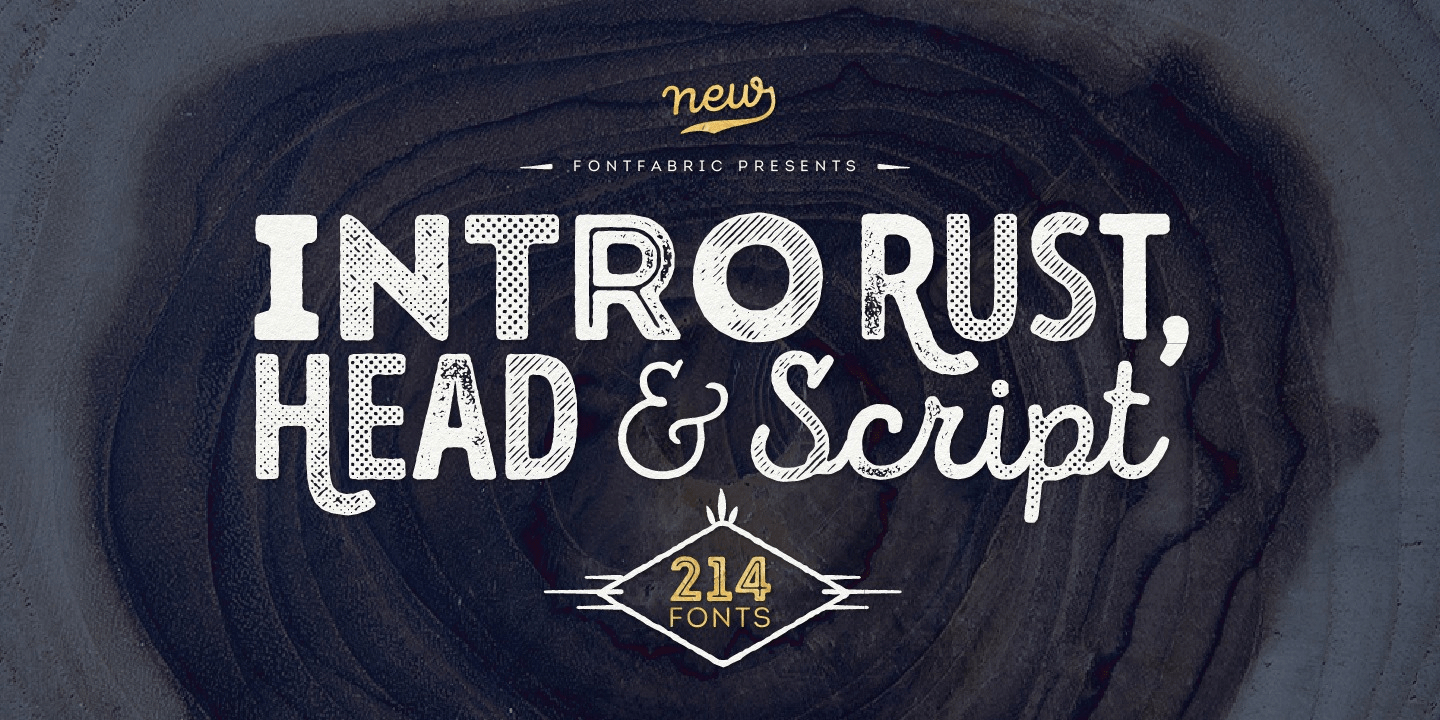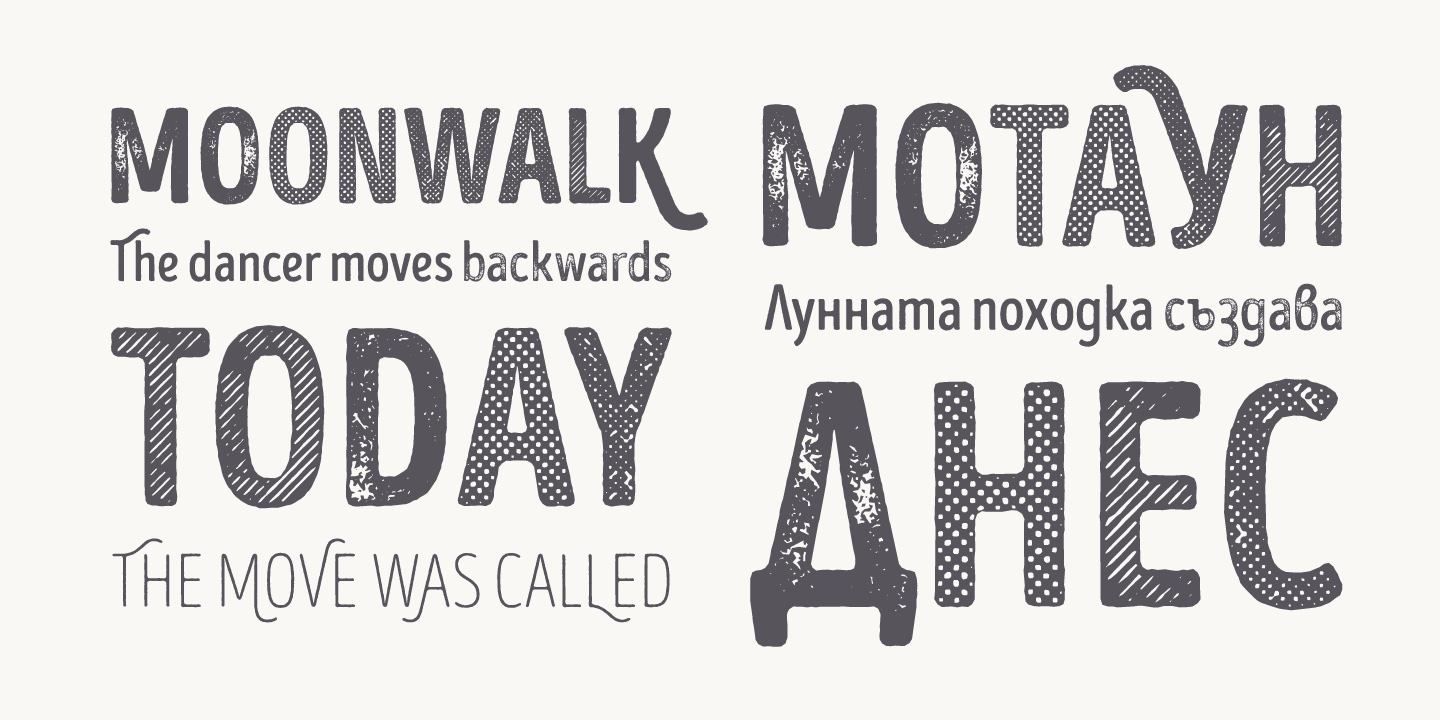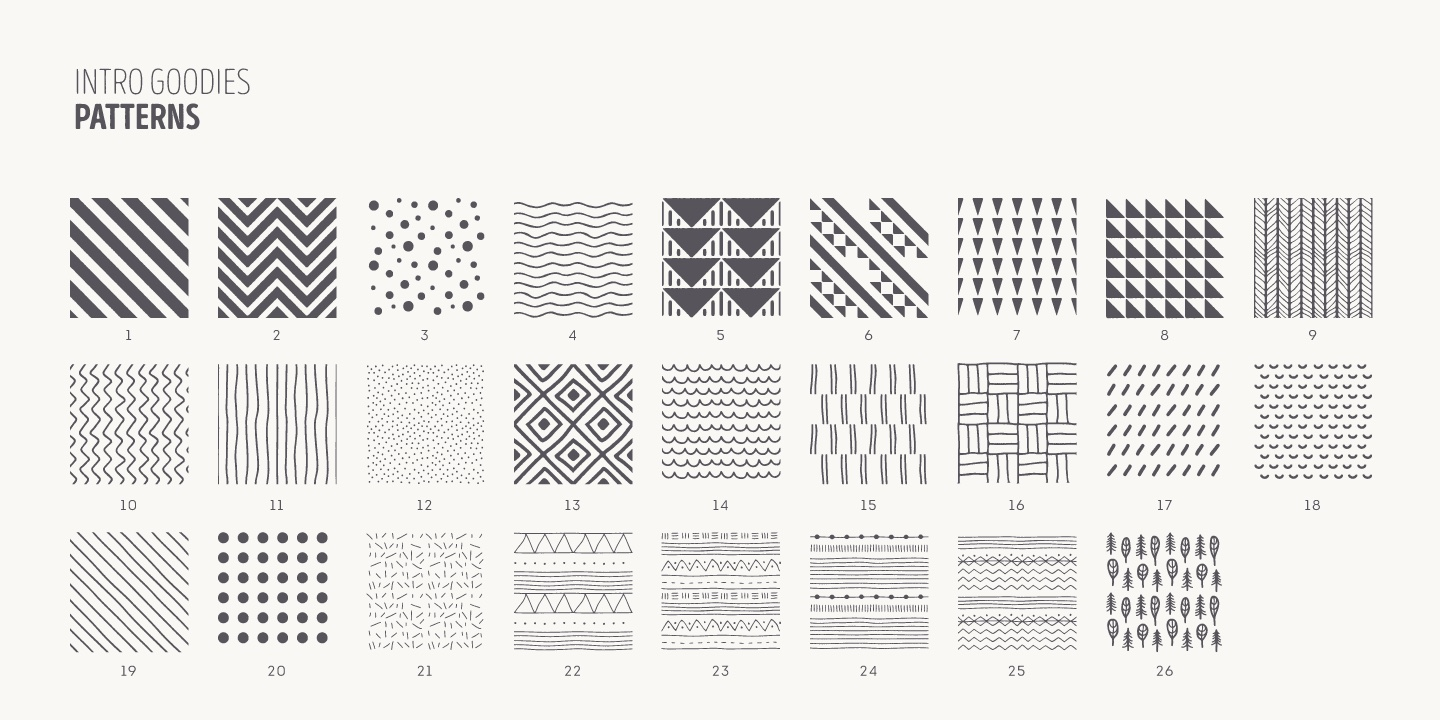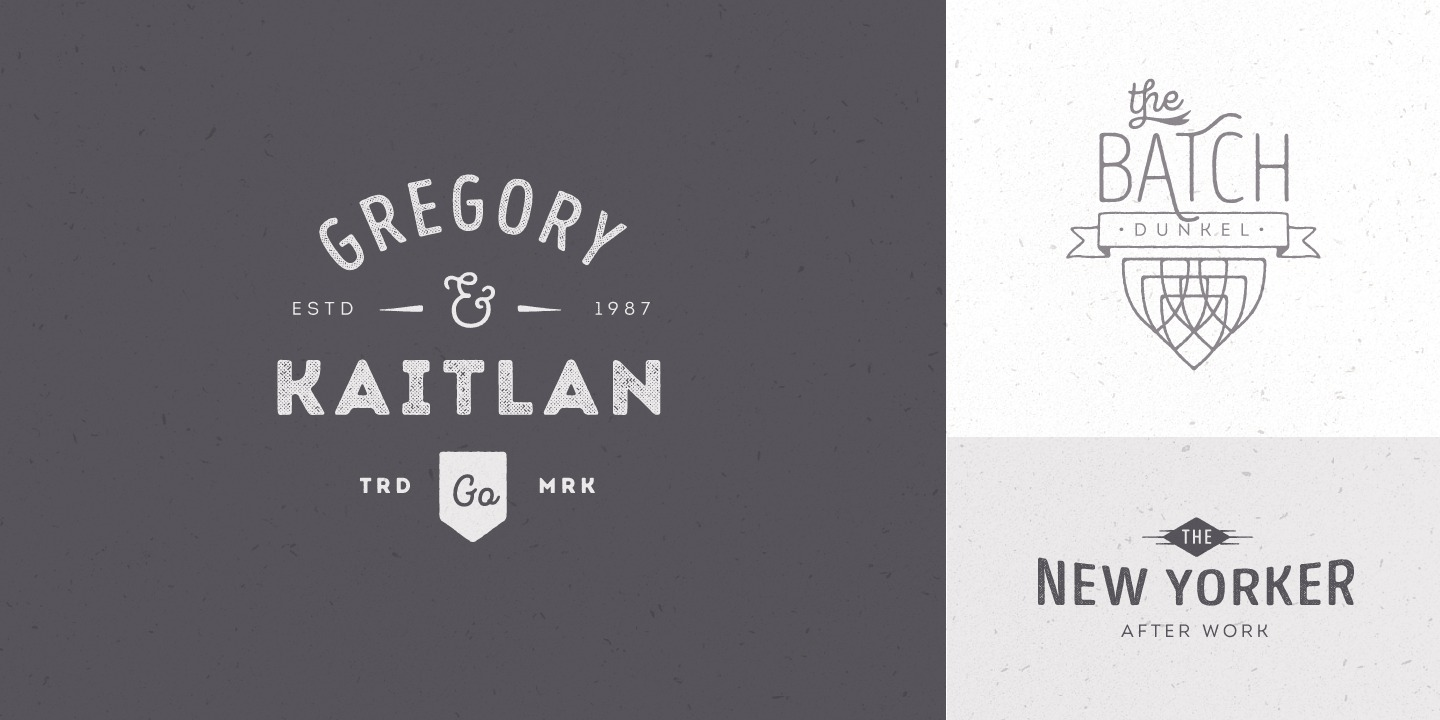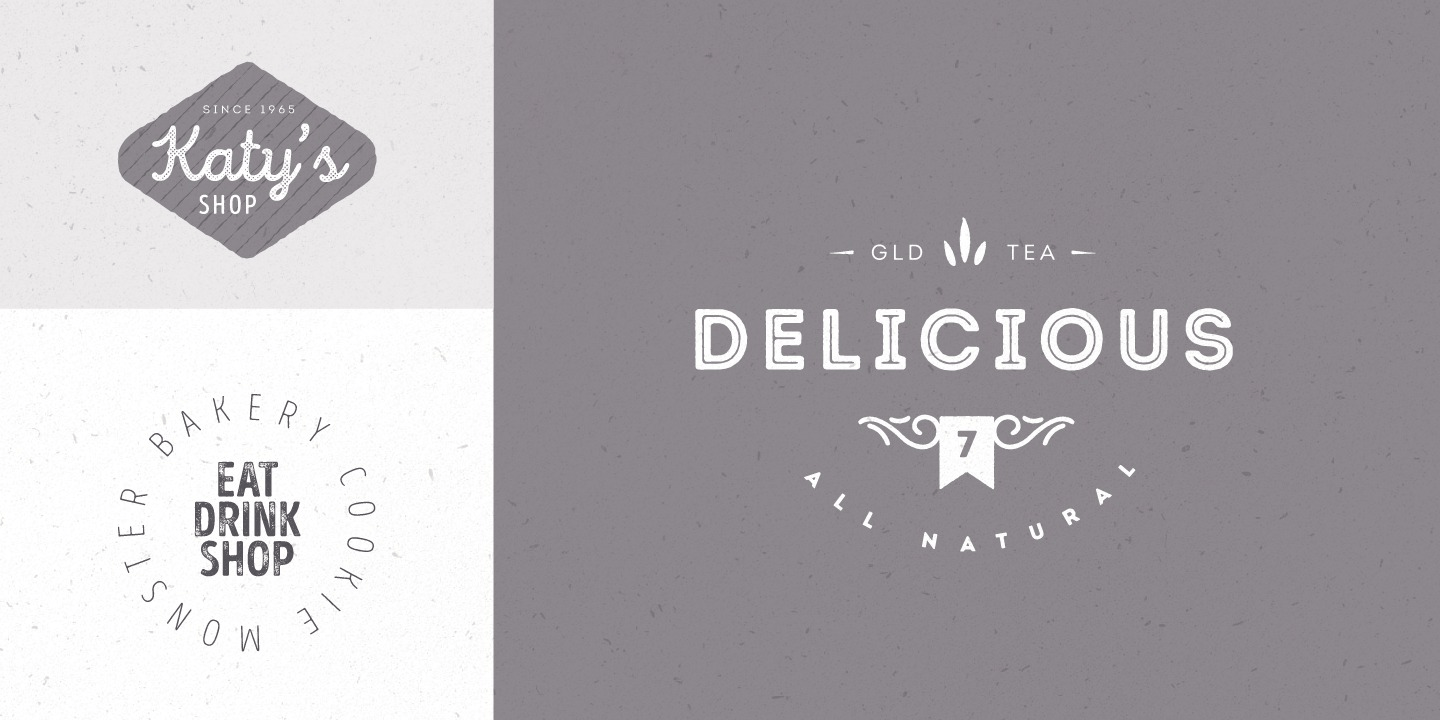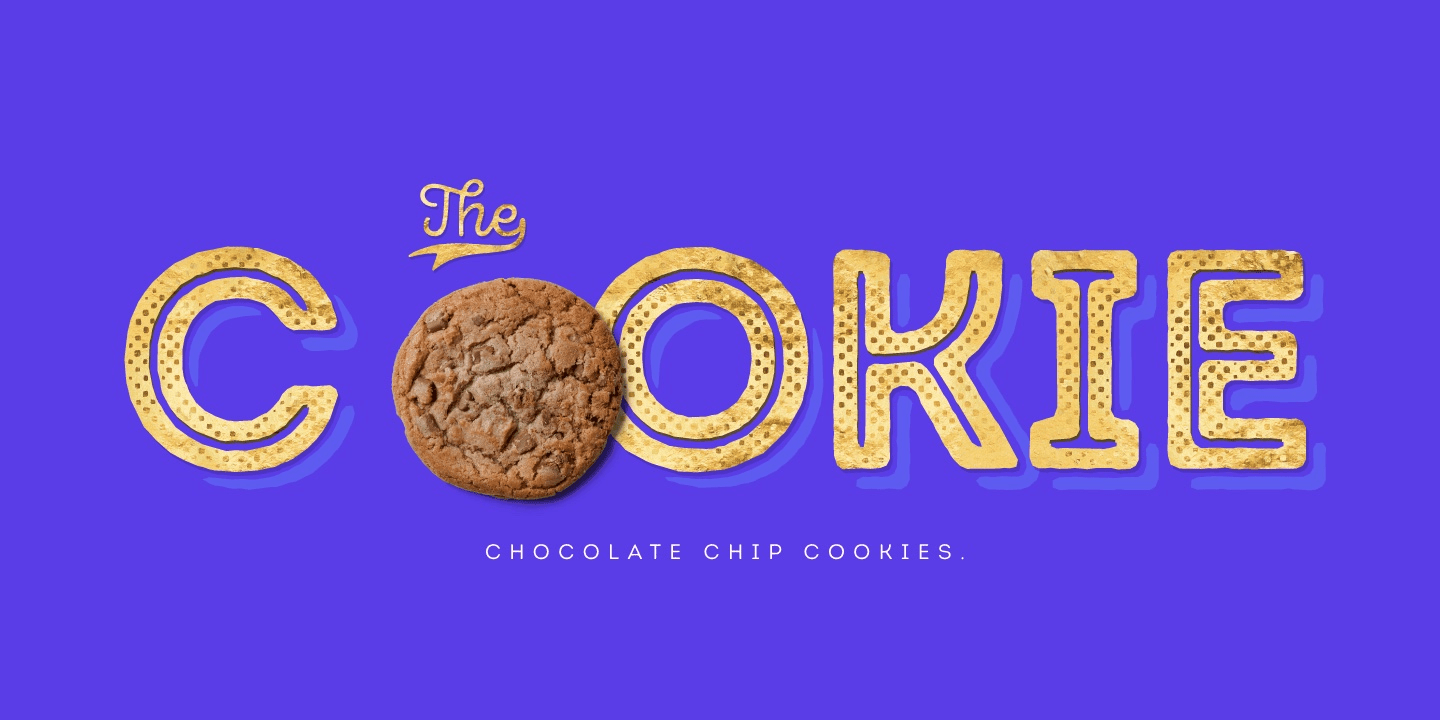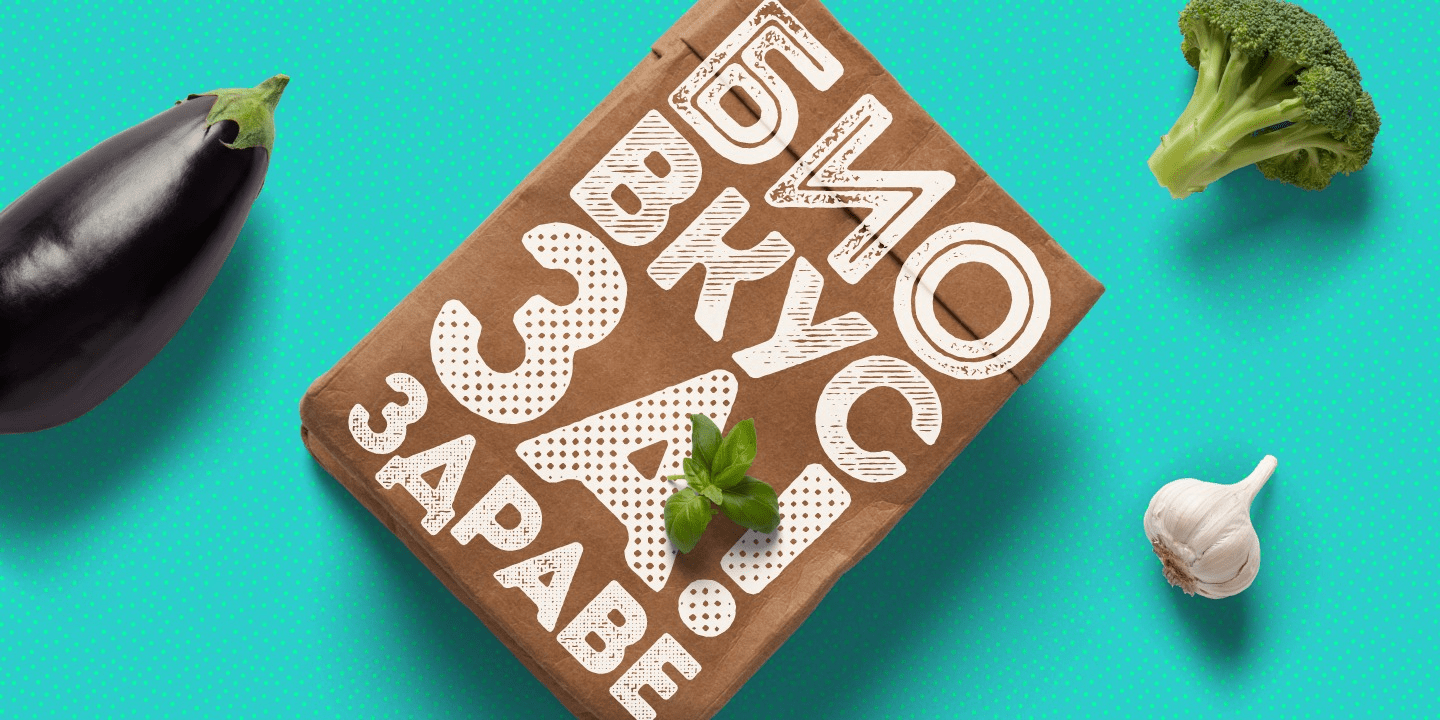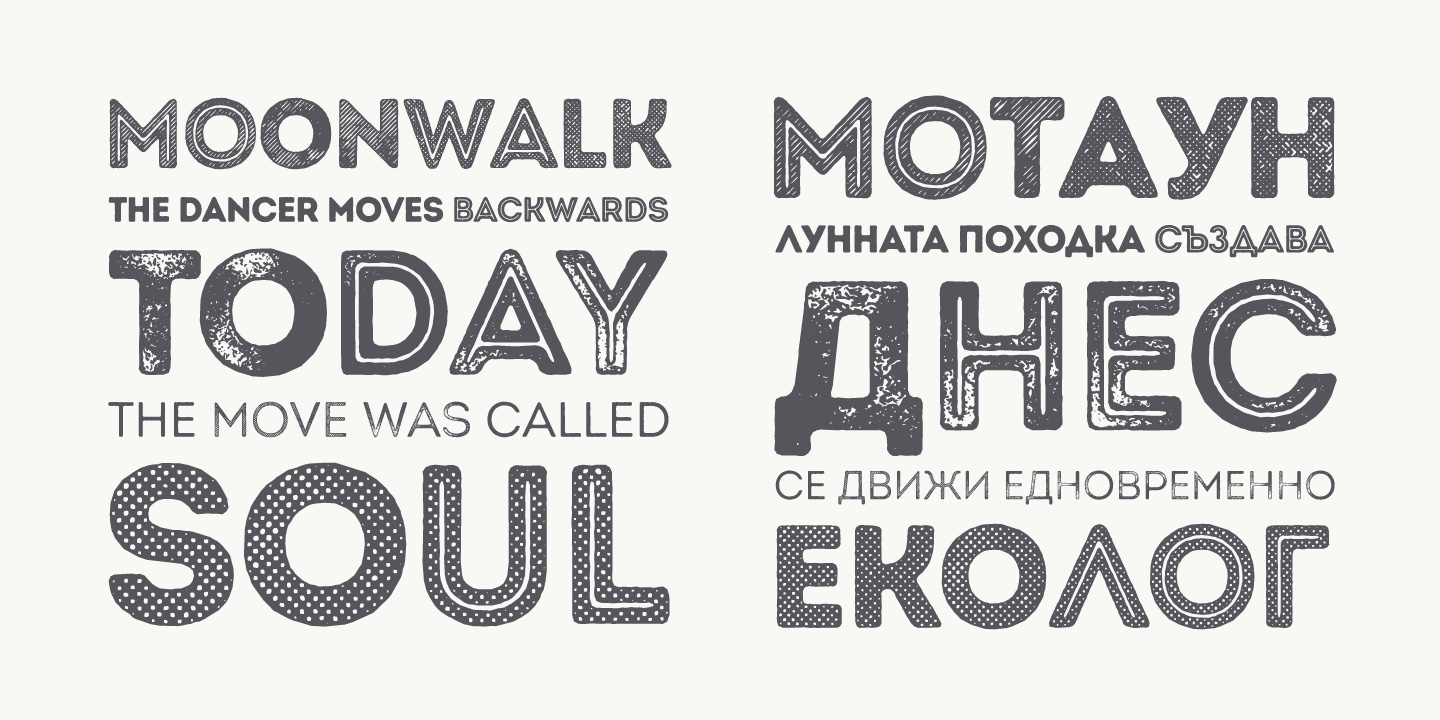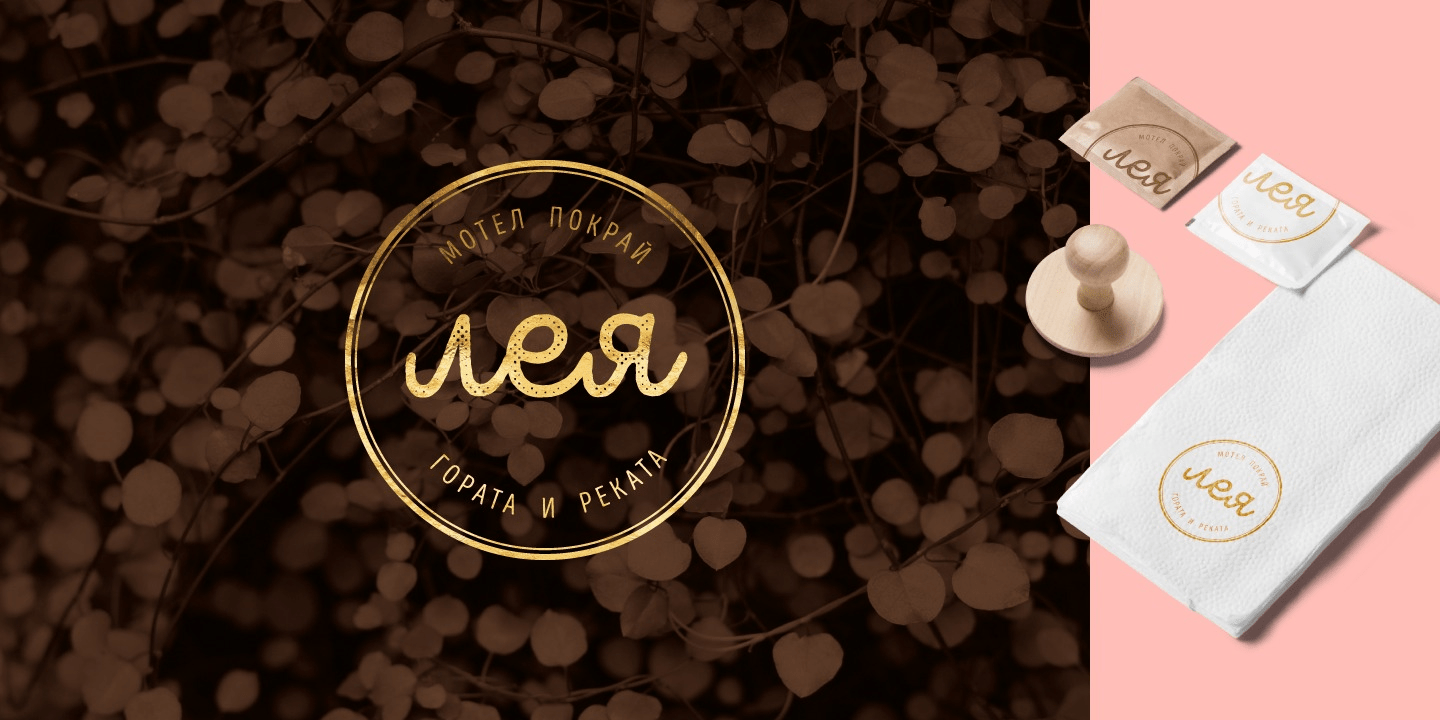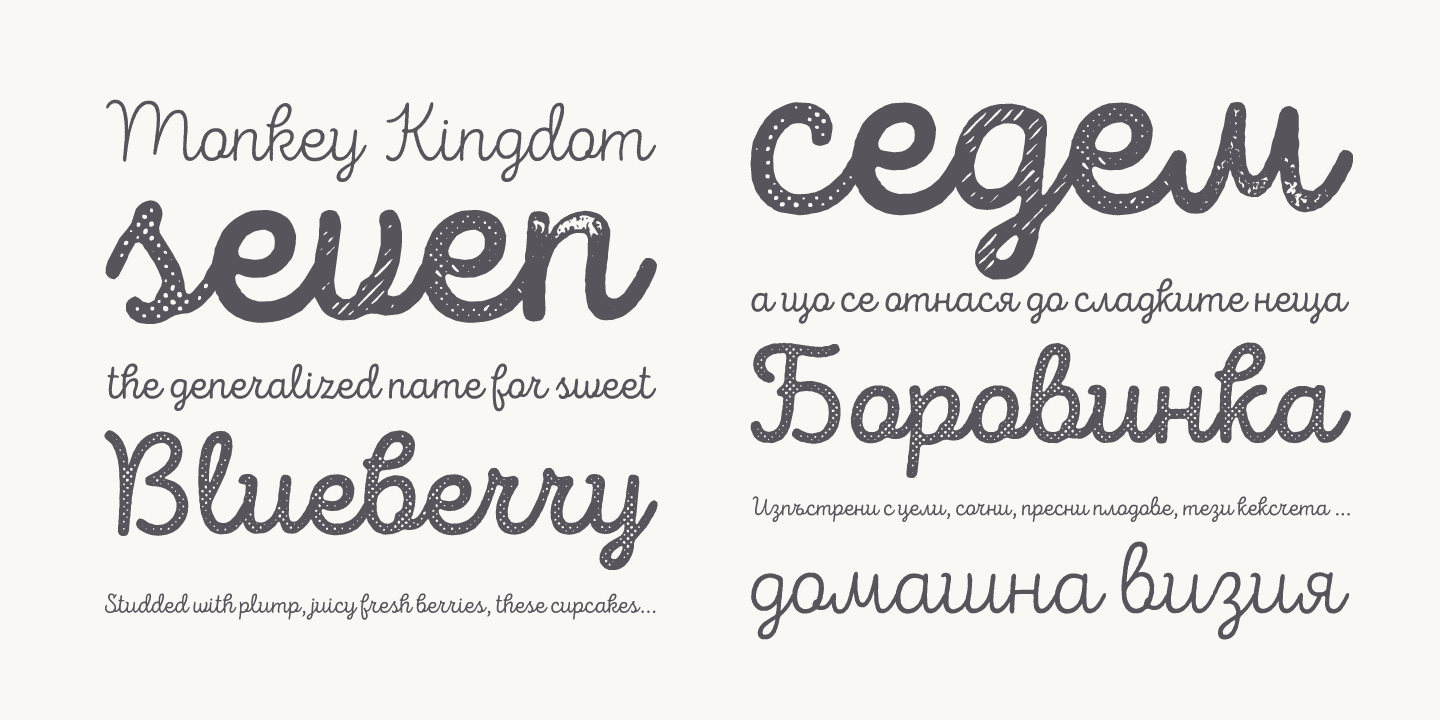
Intro Rust
The Intro Rust typeface bundle includes four sub-families – Intro Rust, Intro Script, Intro Head, and Intro Goodies. A beautiful mixture of display, rust, and script, the typeface can serve you to create all types of designs such as print materials, web design, branding, and more. Use your imagination and your project will become more alive and vivid than ever with one of the Intro Rust fonts.